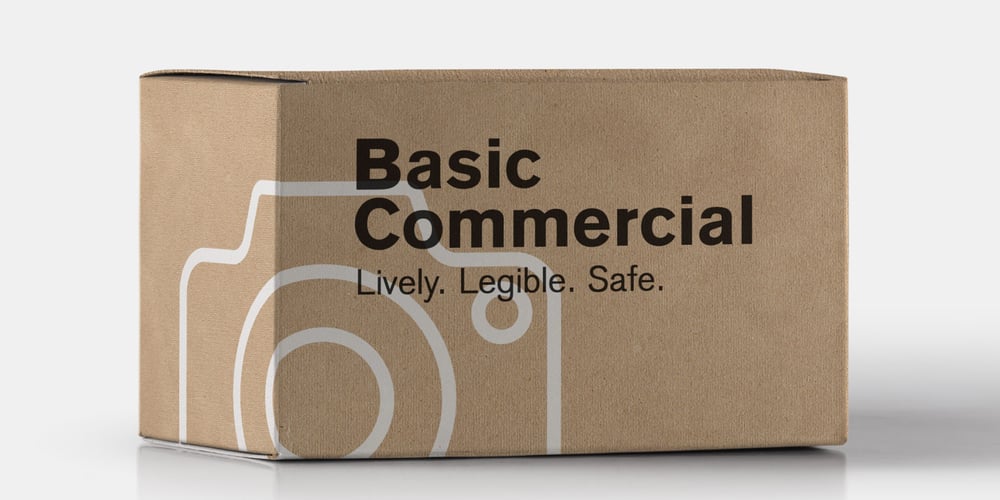
Basic Commercial Font Family was designed by Linotype Design Studio and published by Linotype. Basic Commercial contains 8 styles and family package options. Basic Commercial is a family of fonts based on historical designs from the hot metal type era. First appearing around 1900, these designs were created by type designers whose names have not been recorded, but whose skills cannot be overlooked. These typefaces were popular among groups and movements as diverse as the Bauhaus, Dadaism, and the masters of Swiss/International-Style typography. They influenced a variety of later grotesque fonts, such as Helvetica and Univers. Basic Commercial was distributed for many years in the United States under the name Standard Series. The typeface worked its way into many aspects of daily life and culture; for instance, it became the face chosen for use in the New York City subway system’s signage. The Basic Commercial family members have a clear and objective design. Their forms exhibit almost nothing unusual, but remain both lively and legible nonetheless. Perhaps for this reason, Basic Commercial’s design has been popular with graphic designers for decades.